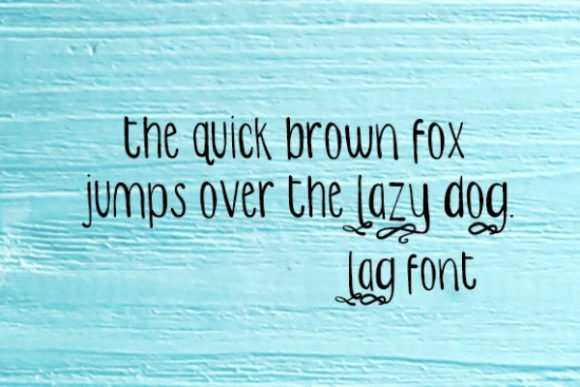
Leaping Font
About Leaping Font
Leaping is a playful handwritten font. Fall in love with its authentic feel and use it to create gorgeous wedding invitations, beautiful stationary art, eye-catching social media posts, and cute greeting cards.